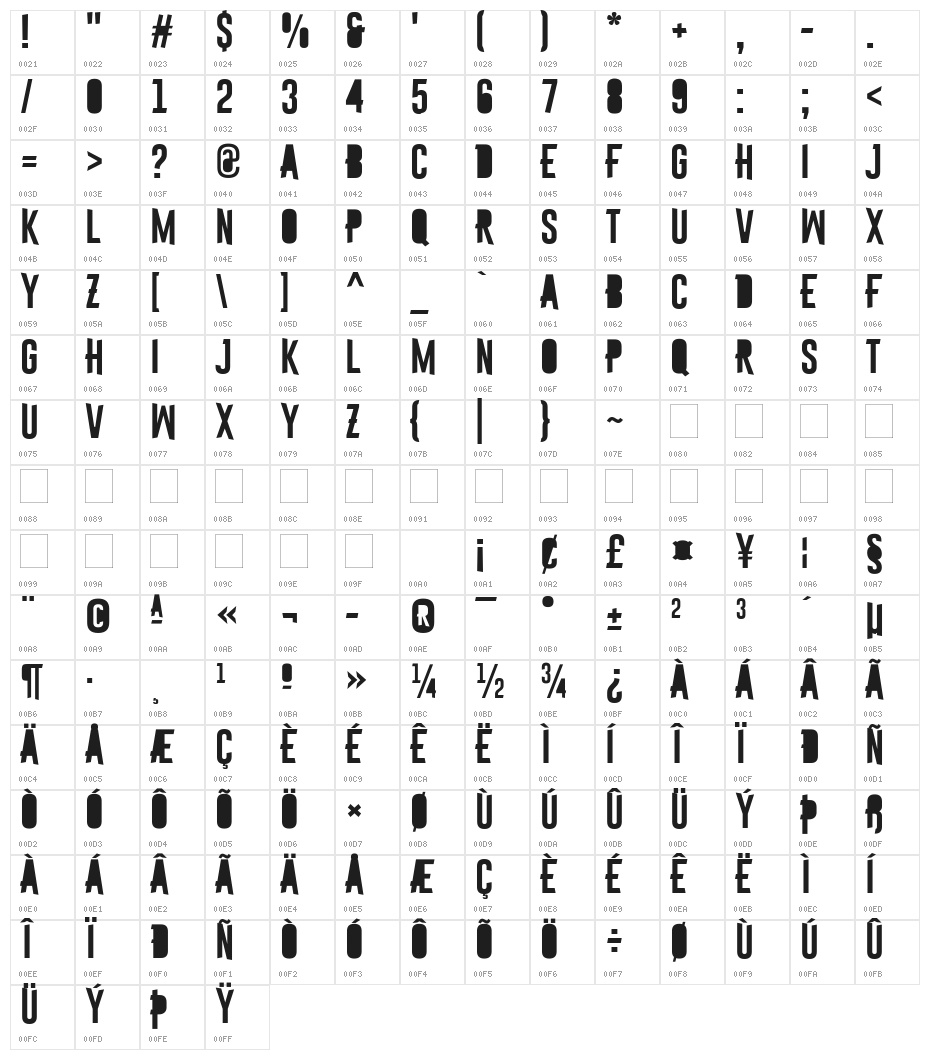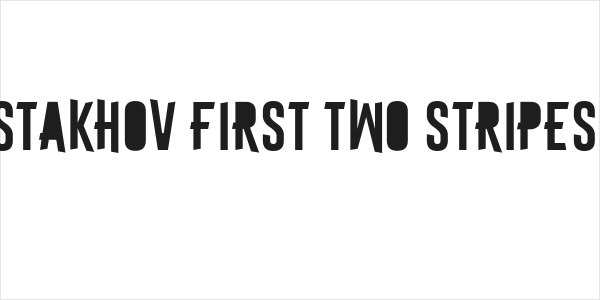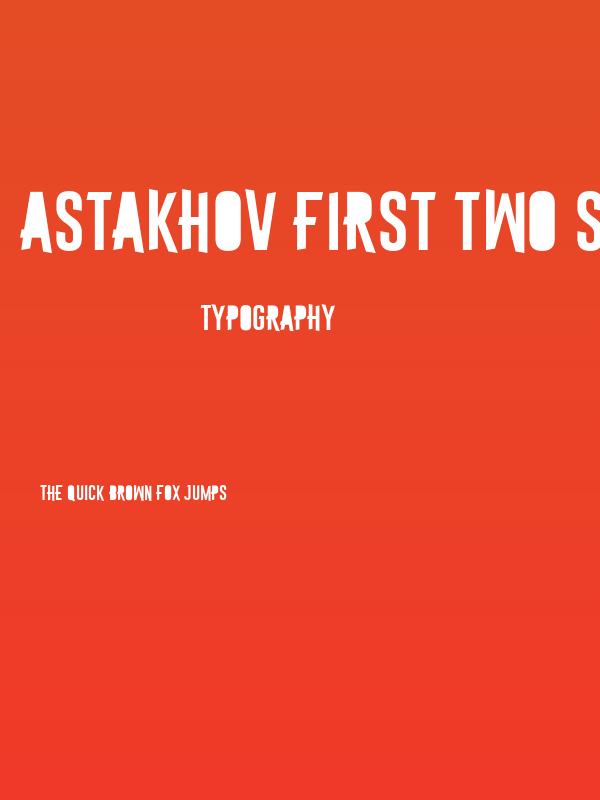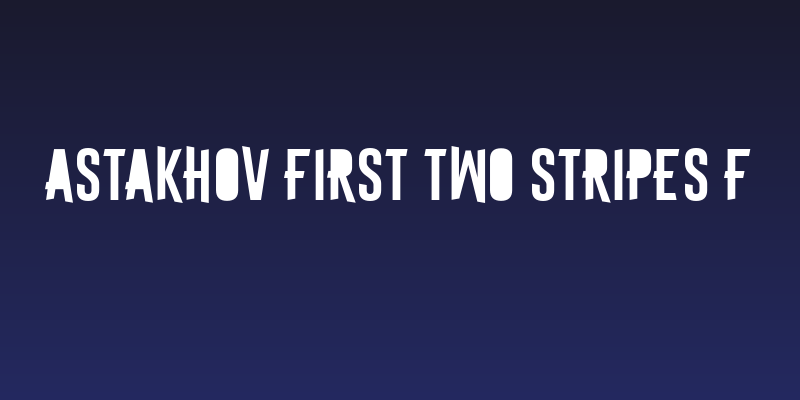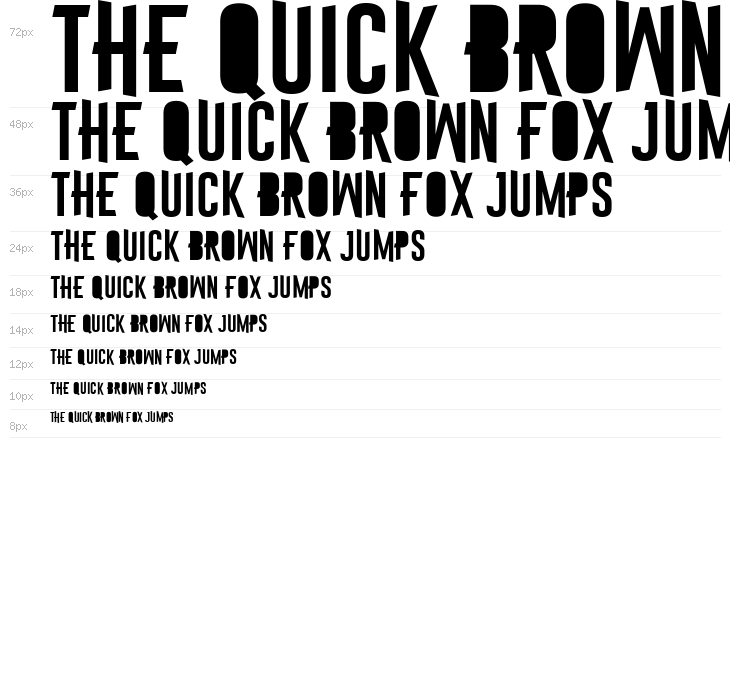
Astakhov First Two Stripes F Font
Astakhov First Two Stripes F Description
This bold and striking font features a strong, impactful design with thick, uniform strokes that command attention. The uppercase letters are particularly prominent, with a slightly condensed appearance that enhances their boldness. The numbers and special characters maintain this robust style, ensuring consistency across all elements. The font's design is modern and assertive, making it ideal for projects that require a strong visual presence. The character spacing is tight, contributing to its compact and powerful look. This font is perfect for creating eye-catching headlines, posters, and branding materials where a bold statement is needed.
| Proposed Projects | Ideal for posters, headlines, branding, and any project requiring a strong visual impact. |